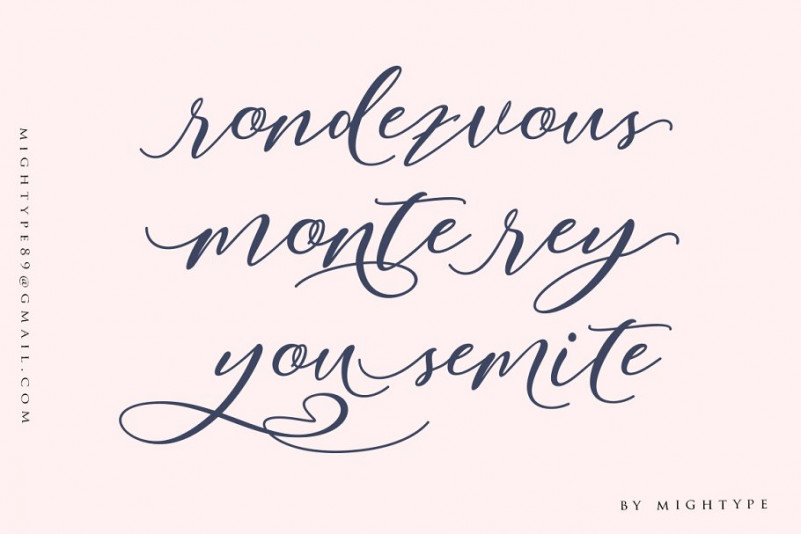
Nattyla Calligraphy Font
Nattyla Calligraphy Demo Font
Hello.. Welcome again! Introducing Nattyla Font! A new Modern Script Calligraphy Typeface with its own unique flow and elegant personality 🙂 It is designed and shared by mightype. Nattyla Calligraphy Font is a modern calligraphy font with the current handwriting style, this font is perfect for branding, wedding invites, magazines, mugs, business cards, quotes, posters, and more, you can try first if you want to buy this font.